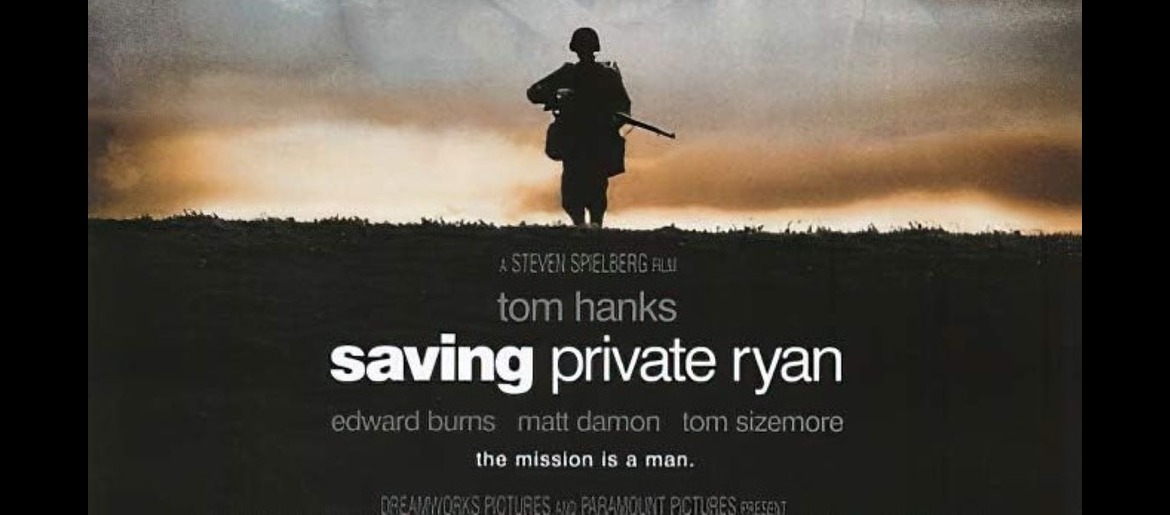
Saving Private Ryan Font embodies the gravitas and historical significance of one of cinema’s most powerful war films. This typography choice masterfully balances military precision with emotional depth, making it essential for projects demanding authenticity and respect.
The poster’s title uses Helvetica, with “SAVING” in a bold, heavy weight (like Helvetica Neue LT Std 95 Black) contrasting with “private ryan” in a lighter, regular weight (like Helvetica 55 Roman).Designers often turn to the Saving Private Ryan font for posters, war-themed projects, or commemorative materials that require a strong and cinematic look.
Saving Private Ryan Font
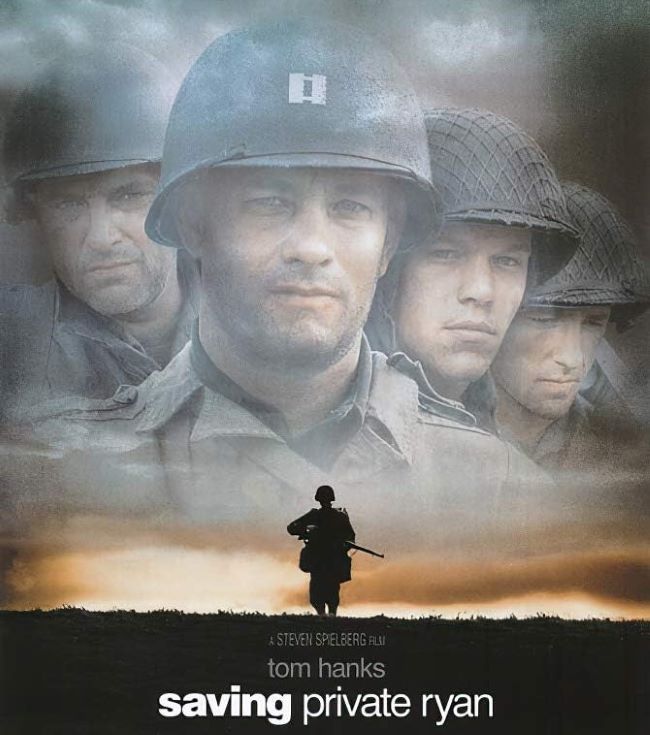
The Saving Private Ryan Font excels in memorial designs, documentary titles, historical publications, and veteran tributes. Its clean, authoritative appearance commands attention while maintaining dignity and professionalism throughout any composition requiring military or historical context.